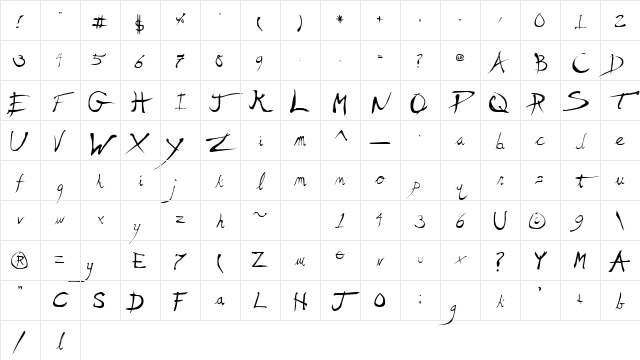
Scratchy Mess Regular
Design Context for Scratchy Mess
Scratchy Mess is a composed and adaptable typeface that performs quietly and consistently across a wide range of design contexts.
Pro Tip: Use Scratchy Mess in both headline and body roles to test its range before committing to a single application.